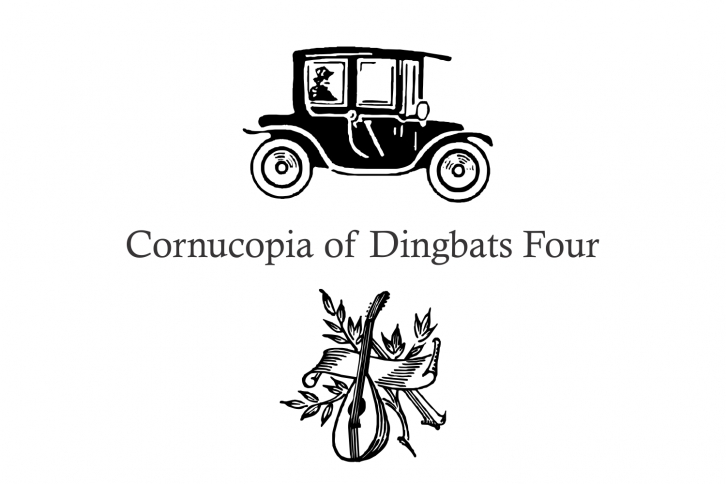
Cornucopia of Dingbats Four is a beautiful font that was designed by Intellecta Design. It's a great choice for designers and creatives who need such a font. It was released on September 27, 2017 and the file size is 17.12 MB. Cornucopia of Dingbats Four may give a more youthful, expressive and casual look to your project. It is a very beautiful, refined, elegant, and high-quality font.